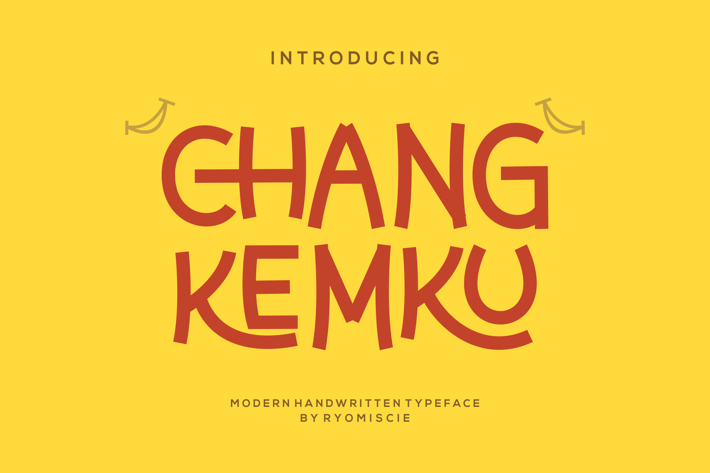
Changkemku - Modern Handwritten Typeface
Introducing our new product Changkemku Font - Modern Handwritten Typeface
Changkemku Font - Modern Handwritten Typeface and authentic display font. The font is suitable for any branding project like logo,
t-shirt printing, esport, and many more. outstanding in a wide range of contexts.
Changkemku Uppercase
Changkemku Lowercase
* Changkemku Ligature